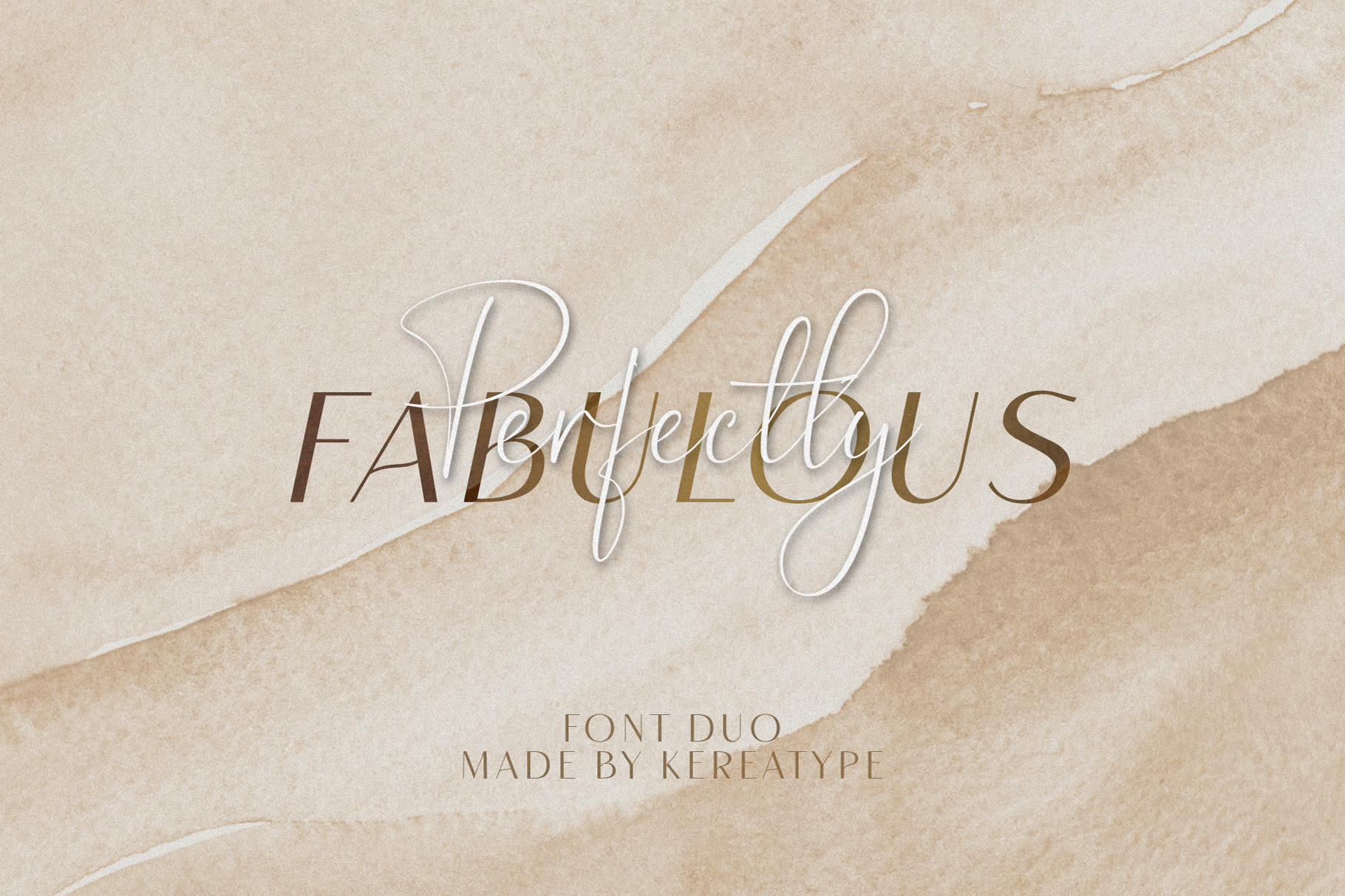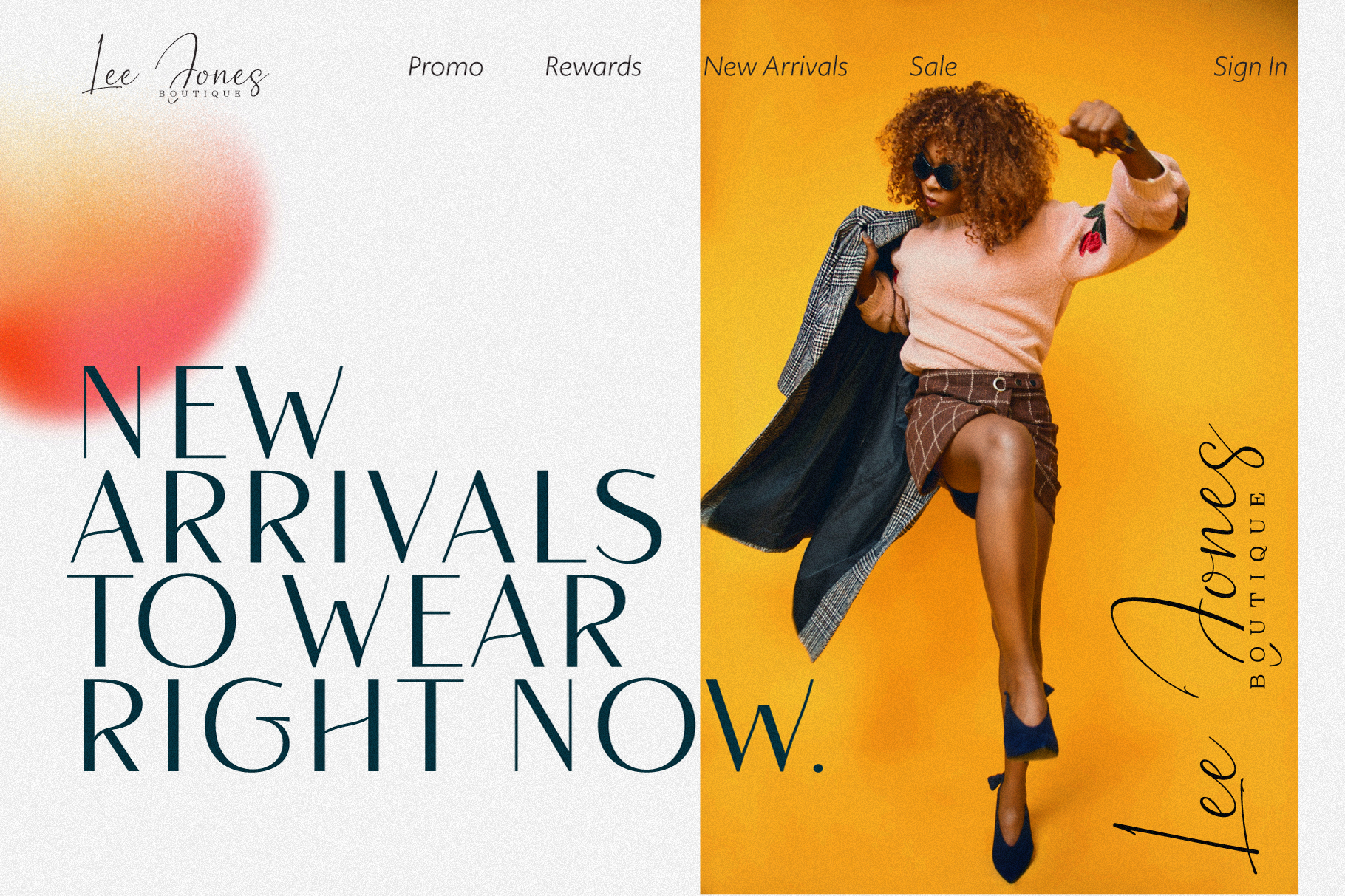
Rise of Beauty Font
Rise of Beauty Font is a classy, contemporary pair of Script Signature and Sans Serif fonts. With a stylish expressive script companion, Rise of Beauty offers beautiful typographic harmony for a diversity of design projects, including logos & branding, wedding designs, social media posts, advertisements & product designs.